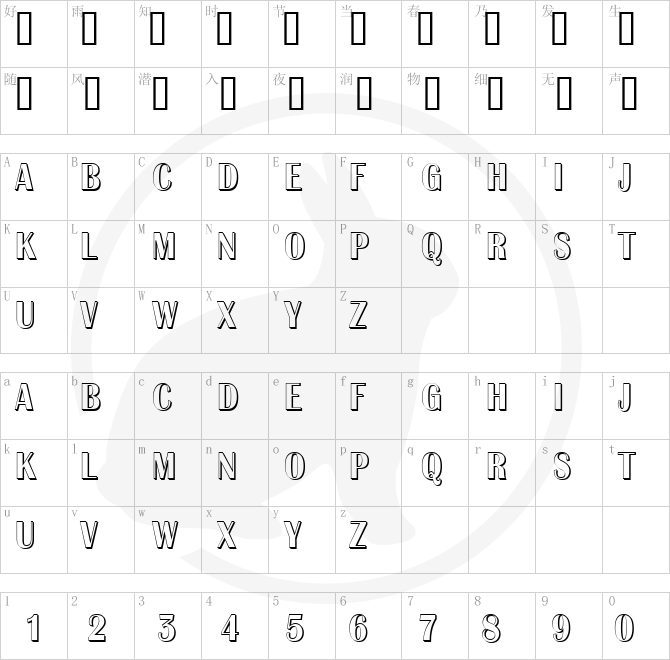
- Font Name:a_AlbionicTitulNrSh
a_AlbionicTitulNrSh.ttf is a very beautiful artistic font, a_AlbionicTitulNrSh.ttf is widely used in the design and printing of various books and pictures,a_AlbionicTitulNrSh.ttf has a strong visual impact,a_AlbionicTitulNrSh.ttf is a commonly used font in newspapers, magazines and books, and is used in posters, e-commerce Poster design, store design, logo design, font design and other fields.a_AlbionicTitulNrSh.